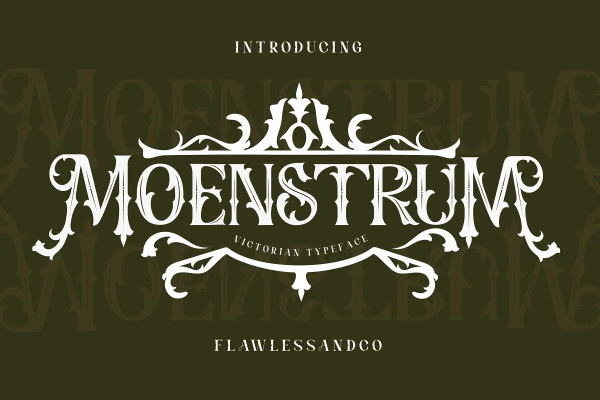
Moenstrum Blackletter Font
Moenstrum Blackletter Font, Victorian Font, Blackletter Font, Modern Blackletter Font that gives Elegant style is perfect for your design.